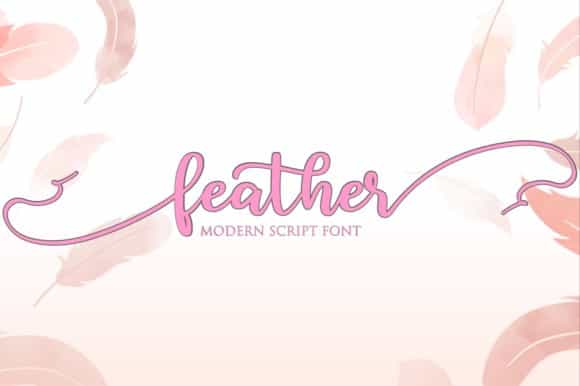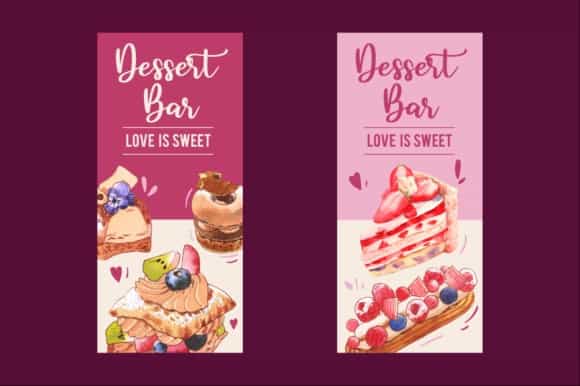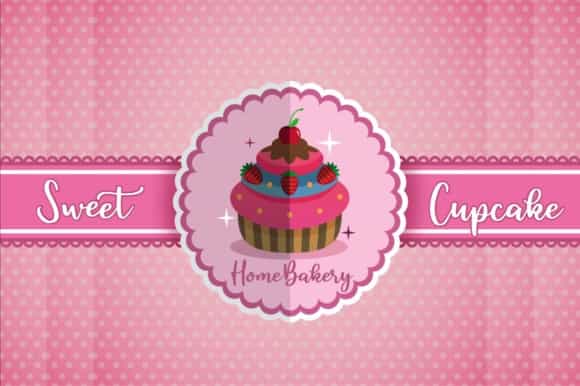
Discover Feather Modern Script Font, part of the Commercial Calligraphy collection—a versatile and unique font perfect for adding a personal touch to your projects. Download it for free and enjoy crafting designs with style, from invitations to social media posts. This font is available exclusively for personal use, giving you the freedom to create without limits. Unlock your creativity with Feather Modern Script Font today!
Introducing the refined new Feather Calligraphy Font! This font was designed for those of you who are looking for a bit of elegance and modernity in your designs. Feather was designed with OpenType features and has beginning and ending swashes, alternate swash characters for most lowercase letters, numbers, punctuation marks as well as other languages.